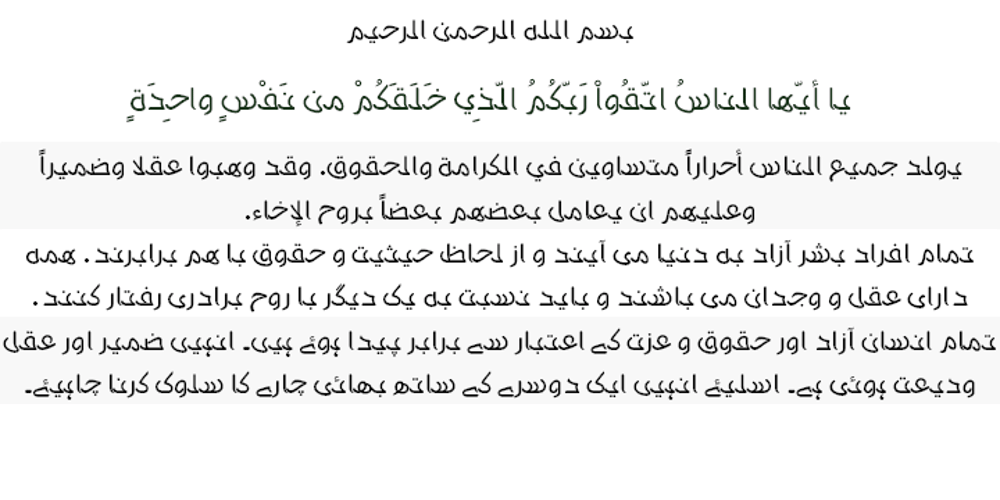
Ibrani Font Family was designed by Saad D. Abulhab and published by Arabetics. Ibrani contains 2 styles and family package options. A completely isolated letters typeface design with an overall Hebrew look and feel. Glyphs were designed with an emphasis on isolation and vertical feel with a visual connectivity measure to help easy reading. The Ibrani (Arabic for Hebraic) font family has two members, regular and left-slanted italic styles. This font family design follows the guidelines of Mutamathil Taqlidi type style with one glyph for every basic Arabic Unicode character or letter, as defined in the latest Unicode Standards, and one additional final form glyph, for the freely-connecting letters in traditional Arabic cursive text. Ibrani employs variable x-height values. It includes only the Lam-Alif ligatures. Soft-vowel diacritic marks, harakat, are selectively positioned. Most of them appear by default on the same level, following a letter, to ensure that they would not interfere visually with letters. Tatweel is a zero-width glyph. Keying the tatweel key before Alif-Lam-Lam-Ha will display the Allah ligature. Ibrani includes both Arabic and Arabic-Indic numerals, in addition to standard punctuations.